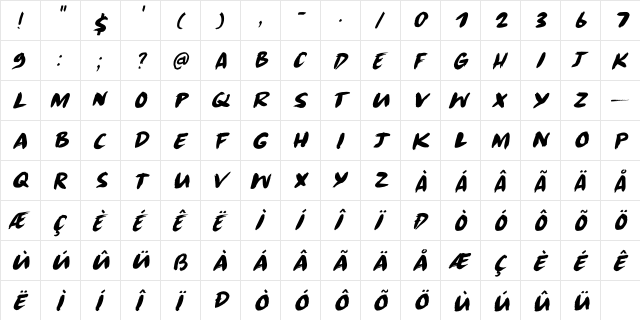
Radical Brush DEMO Regular
Design Context for Radical Brush DEMO Typeface
Radical Brush DEMO brings a calligraphic fluidity to the page — its connecting strokes and expressive curves give it an unmistakably human quality.